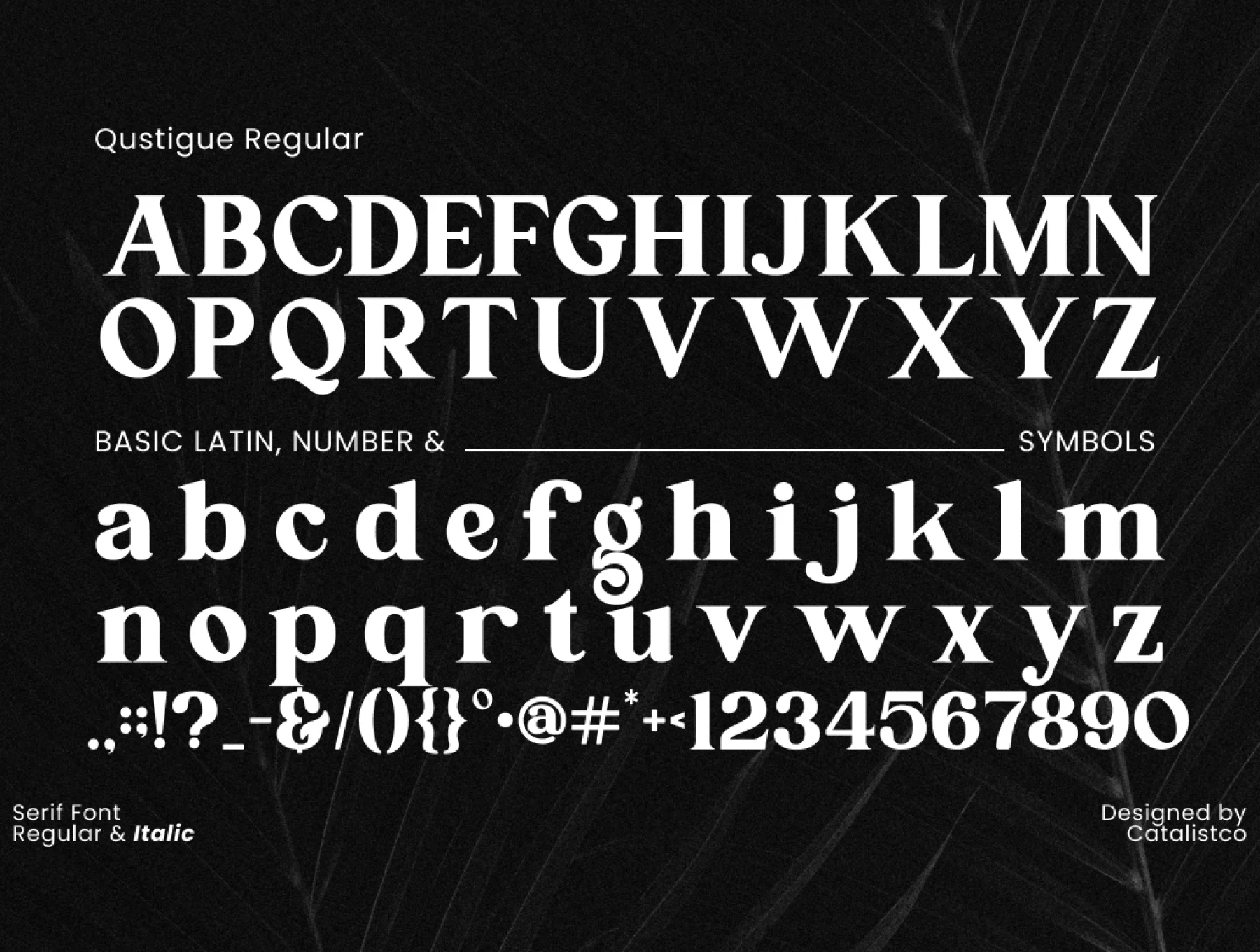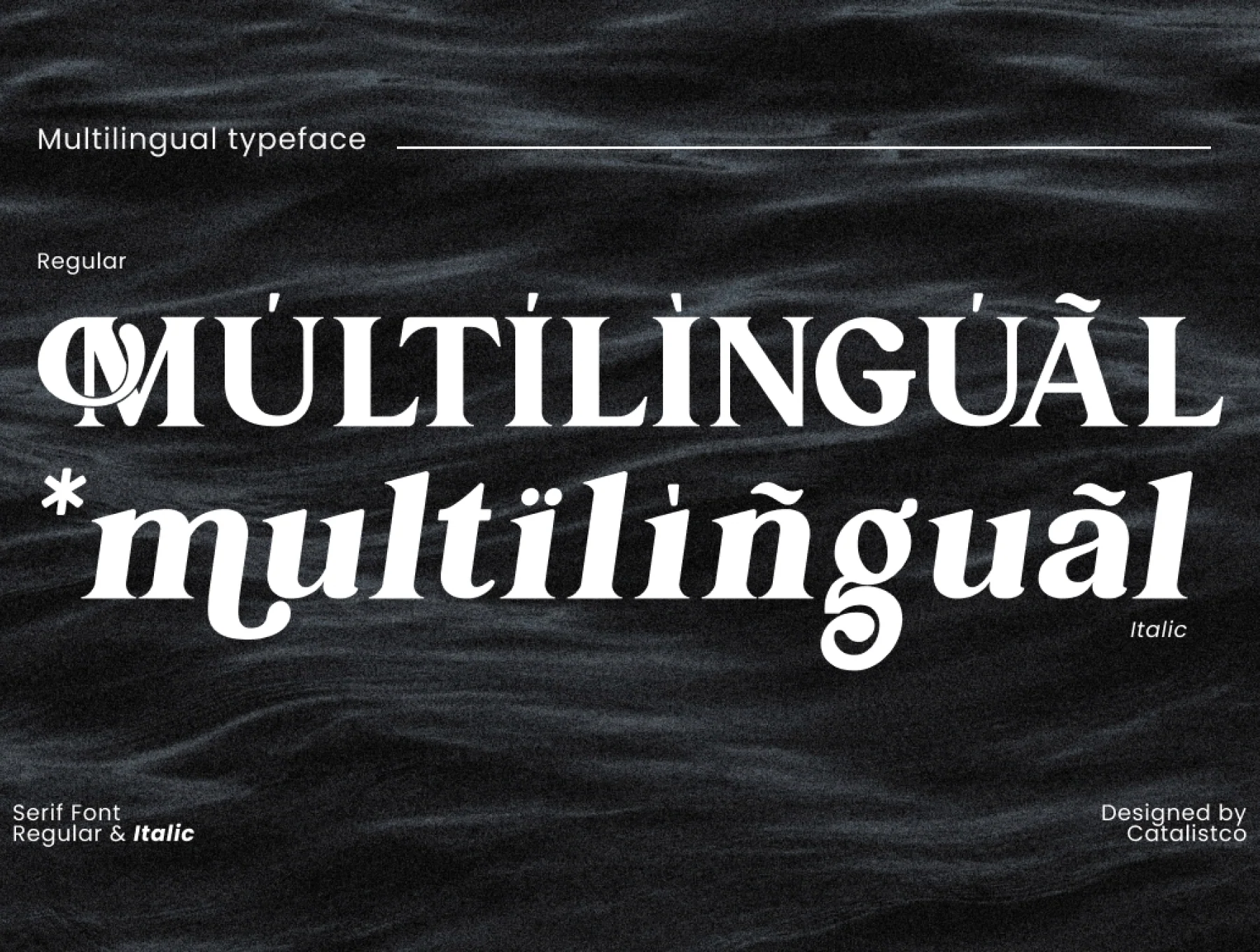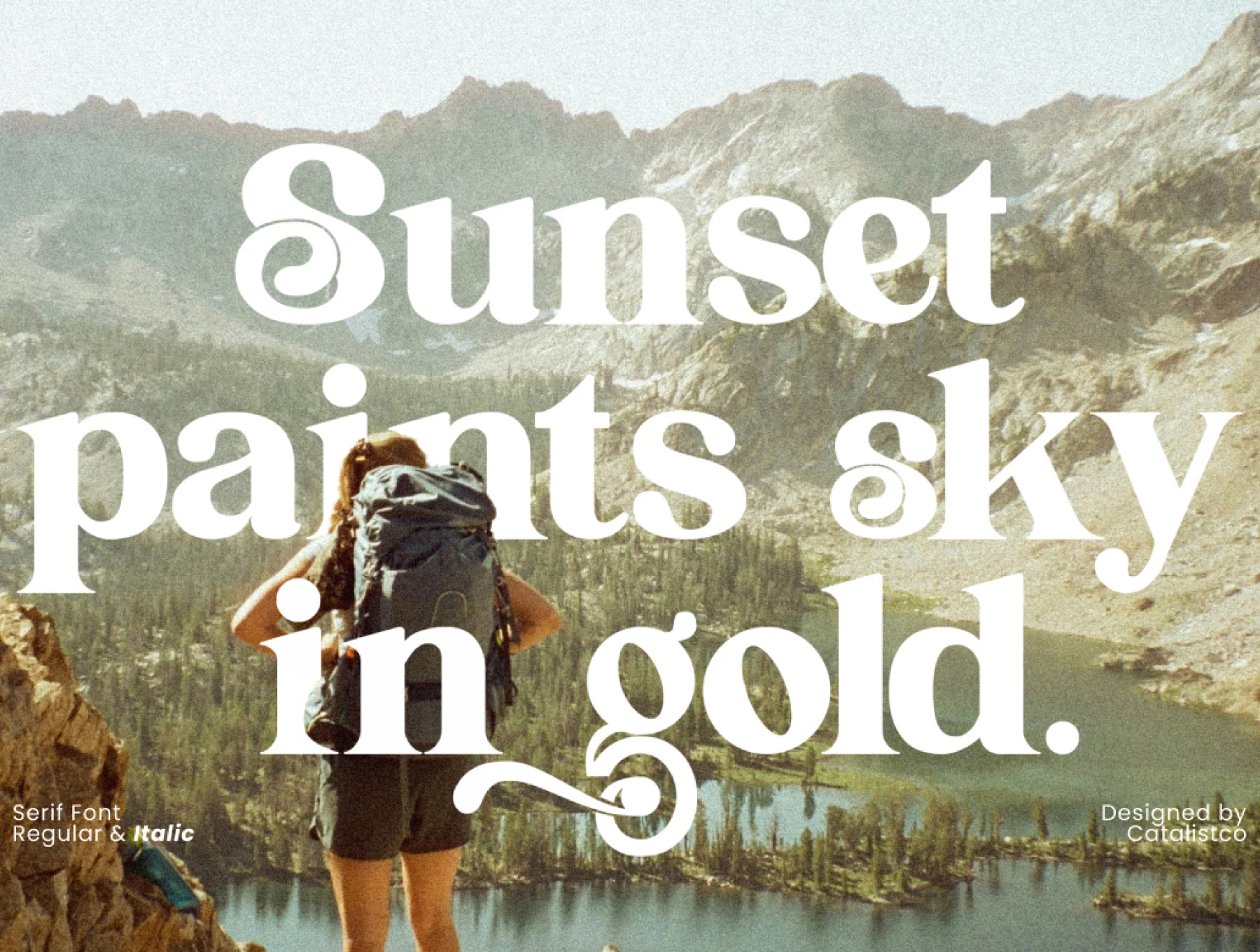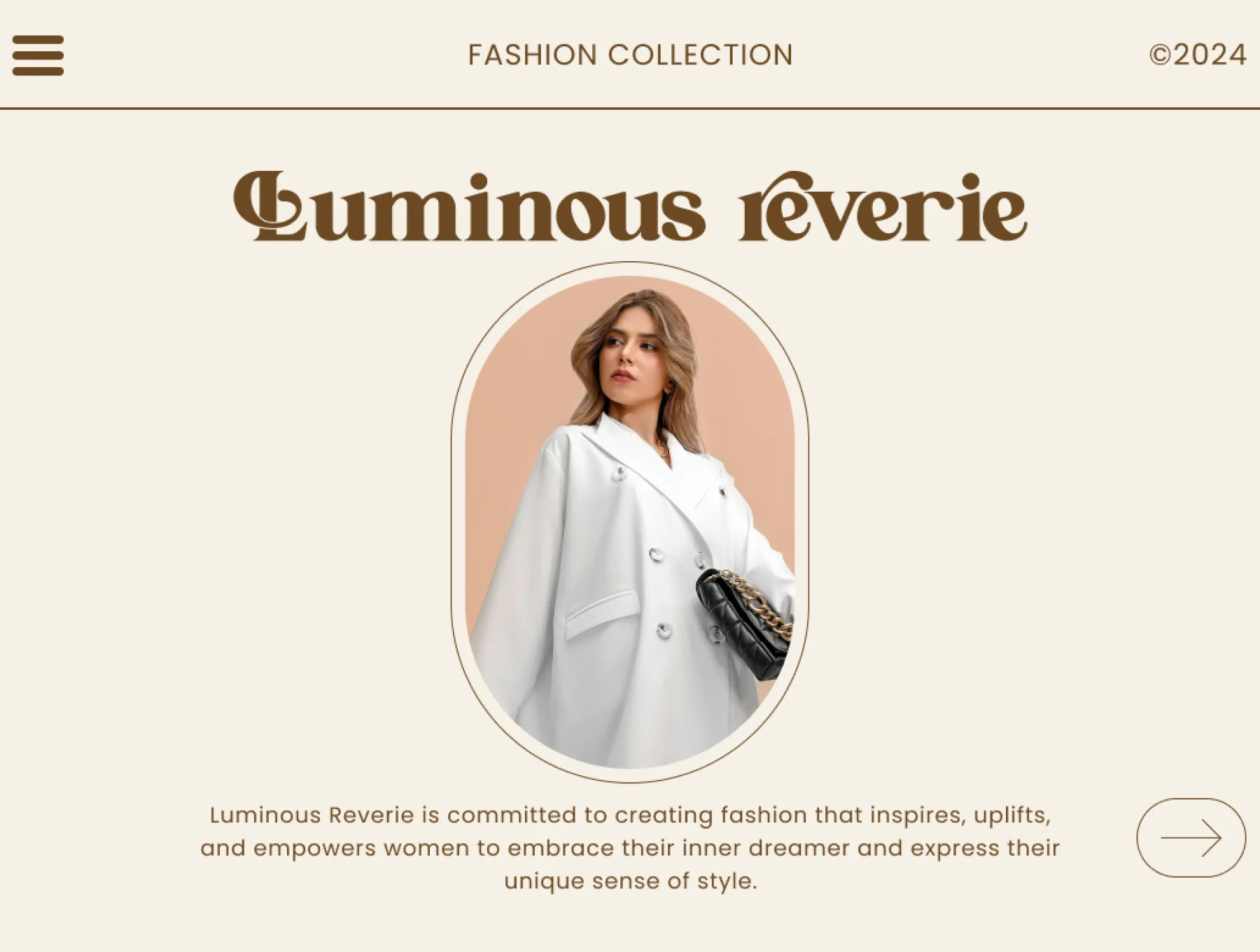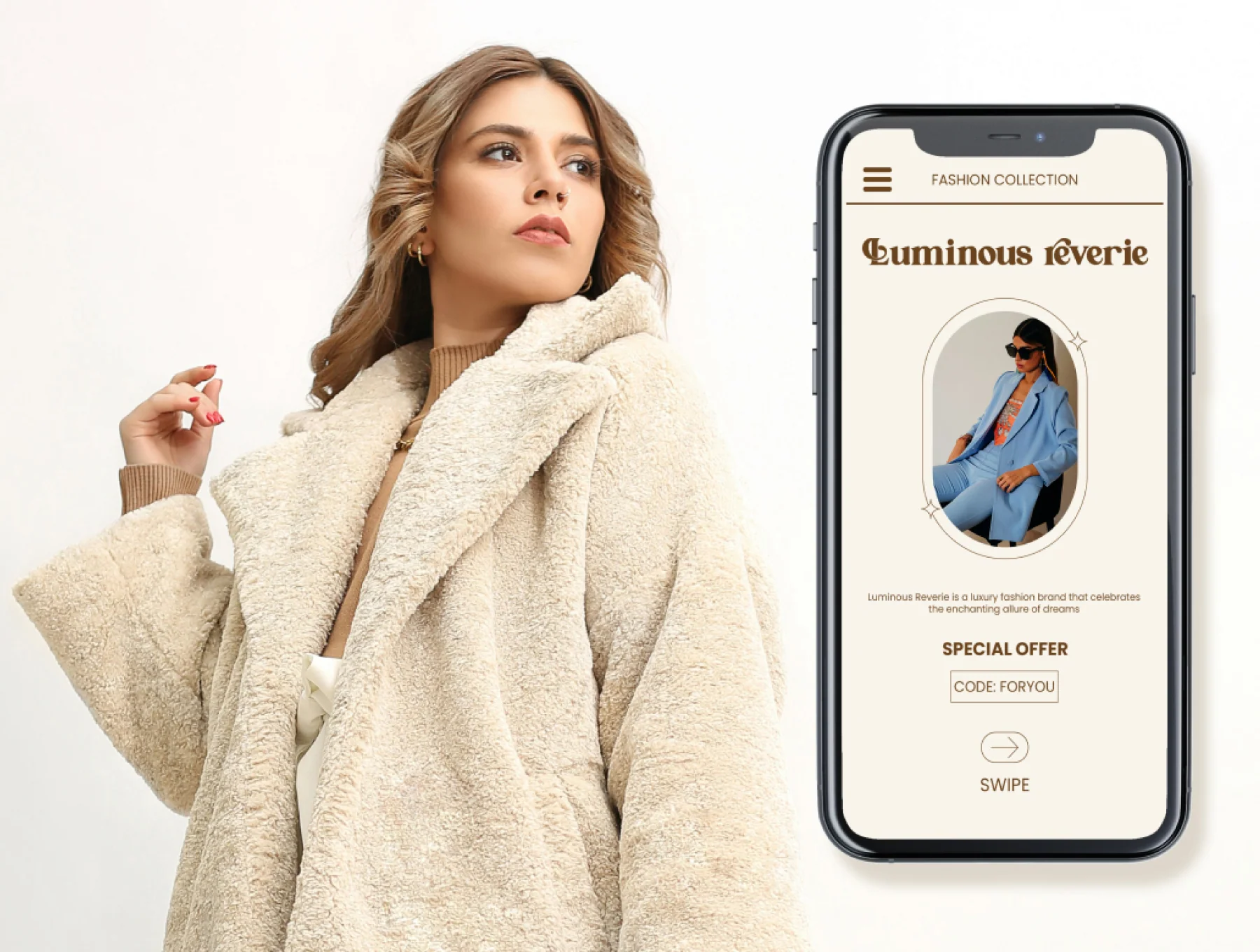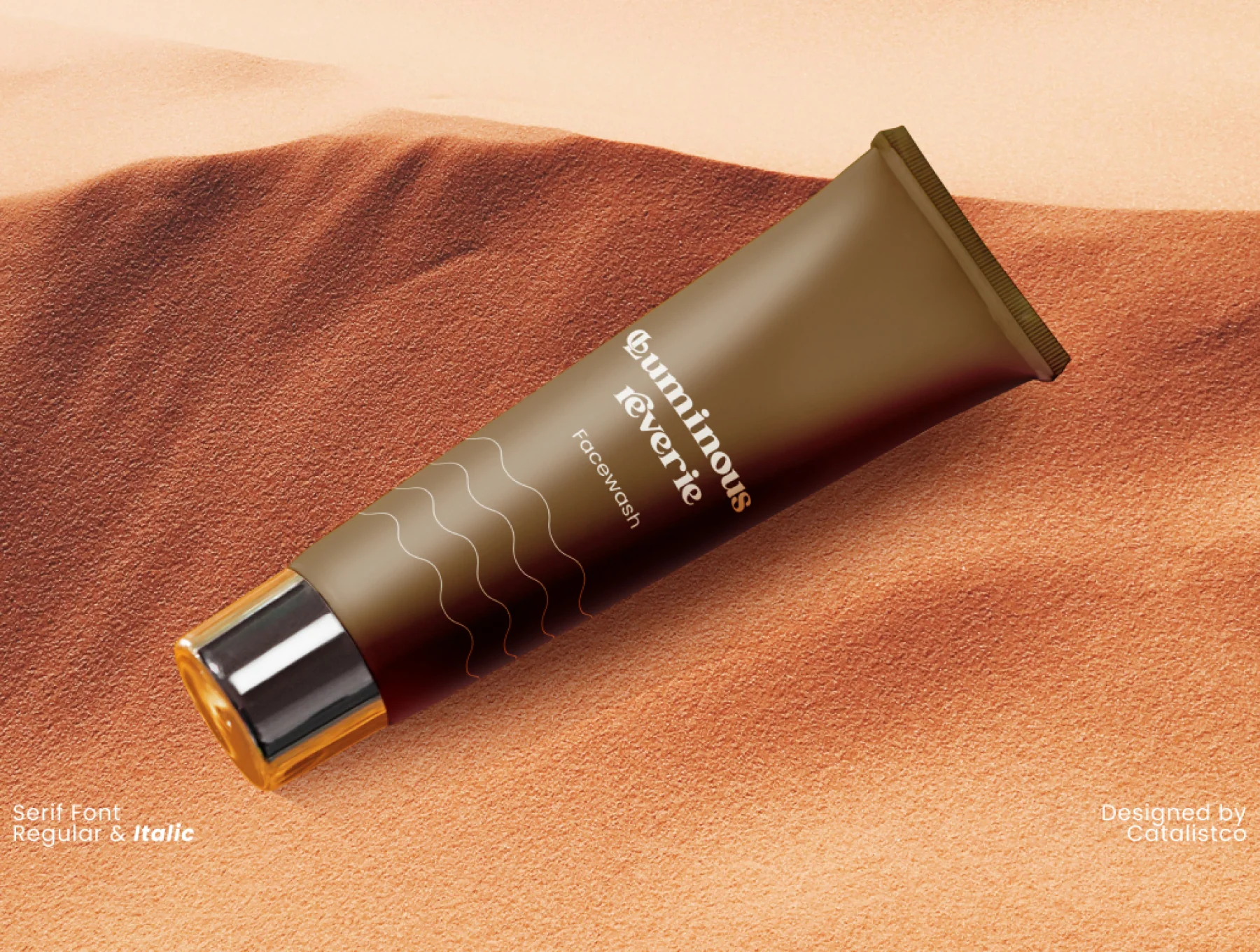
Qustigue Serif Font
Serif Typeface
Capital and small letterforms
Ligature and alternate characters
Qustigue Serif is a stylish typeface ideal for quotes, logos, magazine headers, and more. Includes TTF, OTF, and WOFF files, uppercase and lowercase letters, ligatures, alternates, regular and italic styles, numerals, punctuation, and multilingual support.